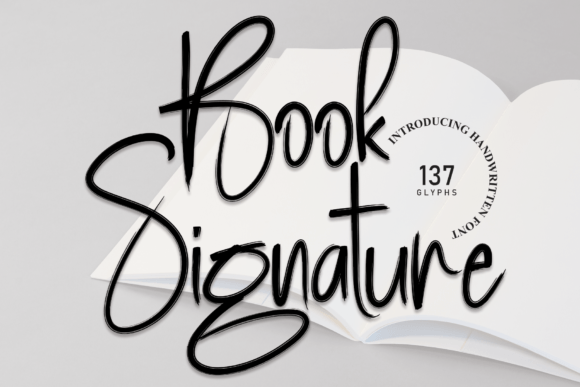
Welcome to our collection of stunning fonts! Today we would like to introduce you to one of our favorites, the Book Signature Font. Created by andikastudio, this script font is the perfect choice for those who want to add a touch of delicacy, elegance, and flow to their designs.
One of the best features of the Book Signature Font is its beautifully balanced characters. Each letter has been carefully crafted to flow seamlessly into the next, resulting in a stunning and harmonious look. This makes it an ideal choice for a wide range of design projects, from invitations and wedding cards to logos, branding, and social media posts.
If you're looking for a font that can add a touch of sophistication and refinement to your designs, then the Book Signature Font is the perfect choice for you. Whether you're working on a personal project or a professional one, this font is sure to impress your audience and leave a lasting impression.
But that's not all! The Book Signature Font is also incredibly versatile. With its delicate and flowing script style, it can be used for a wide variety of design projects. Whether you're looking to create a vintage-style logo, a modern and elegant brand identity, or a playful and whimsical social media post, this font has got you covered.